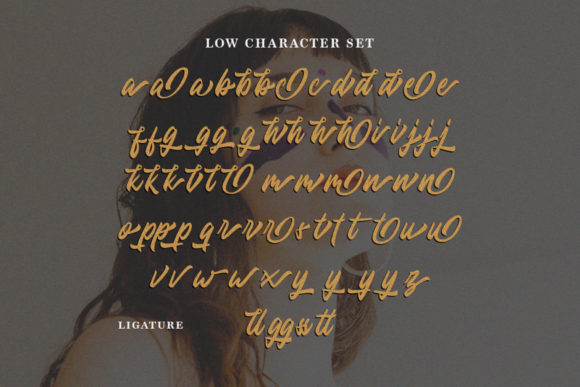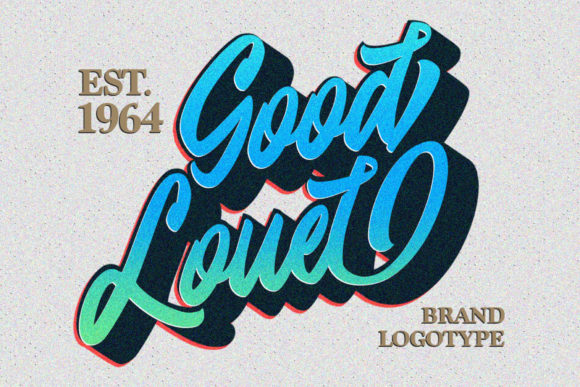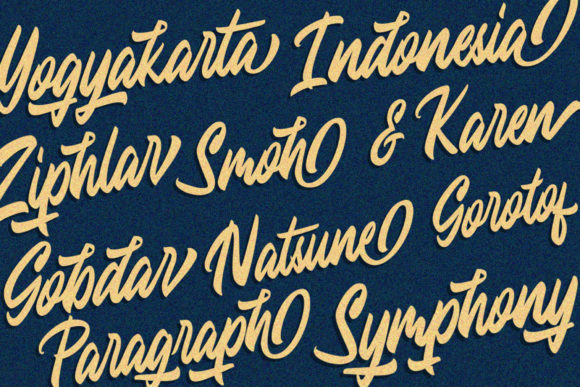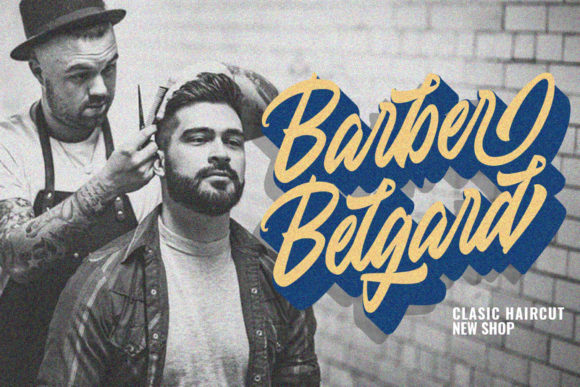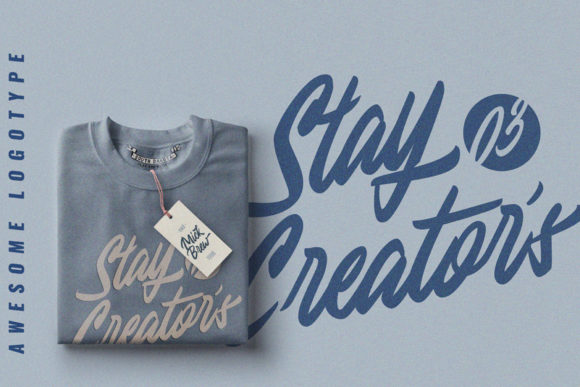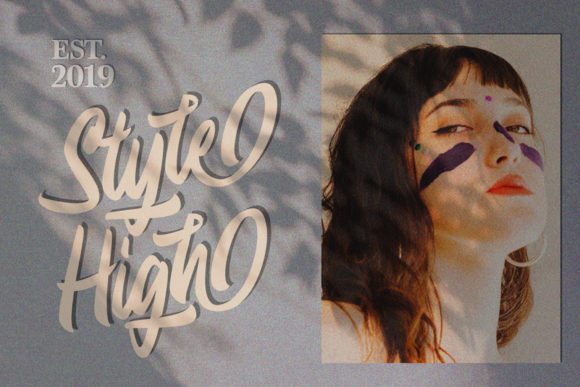
Modster Script Font
About Modster Script Font
Inspired by urban lifestyle, Modster Script is a really modern and unique font. It is created by hand-lettering and even comes with an extra shadow, which will add more depth and character to your design!